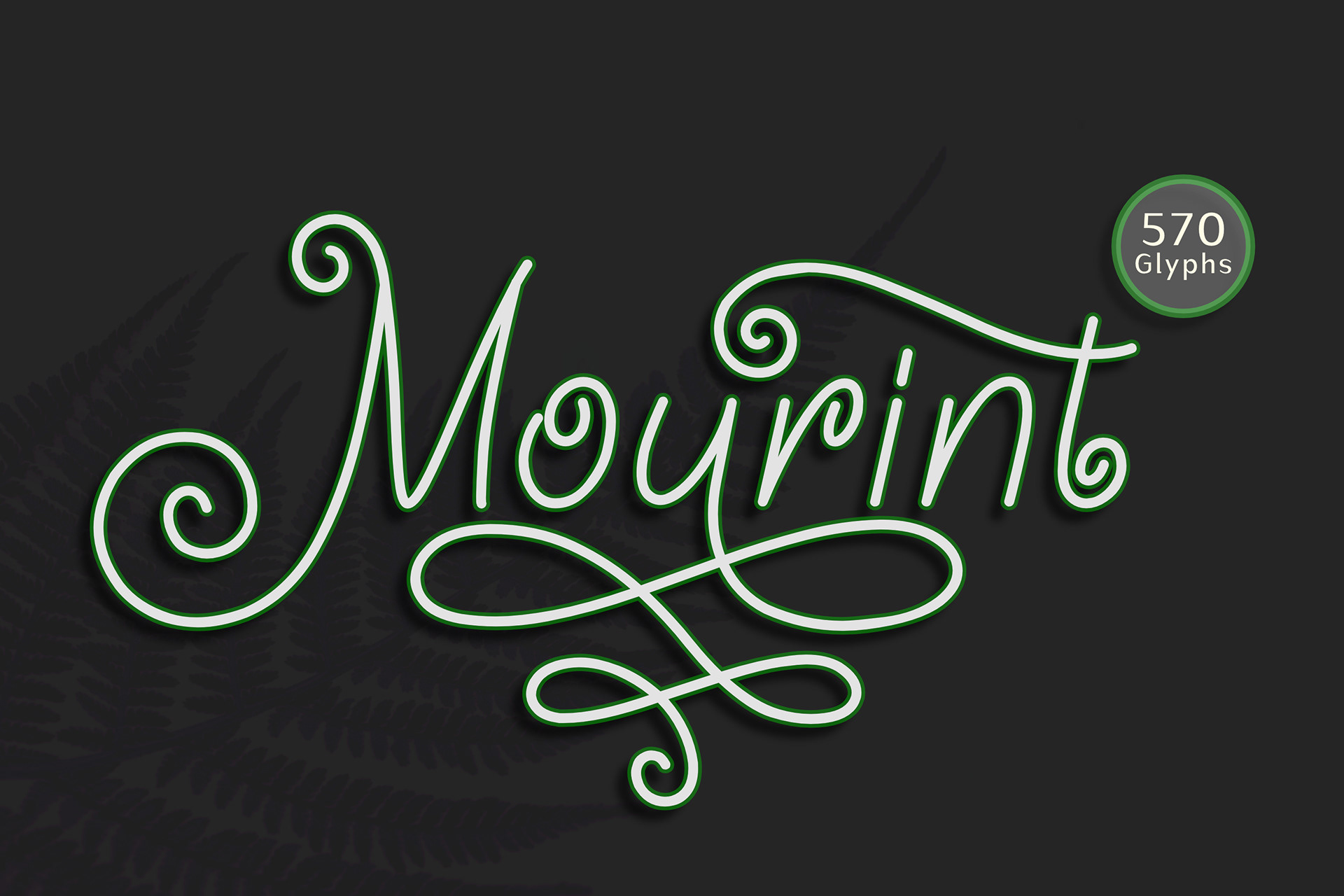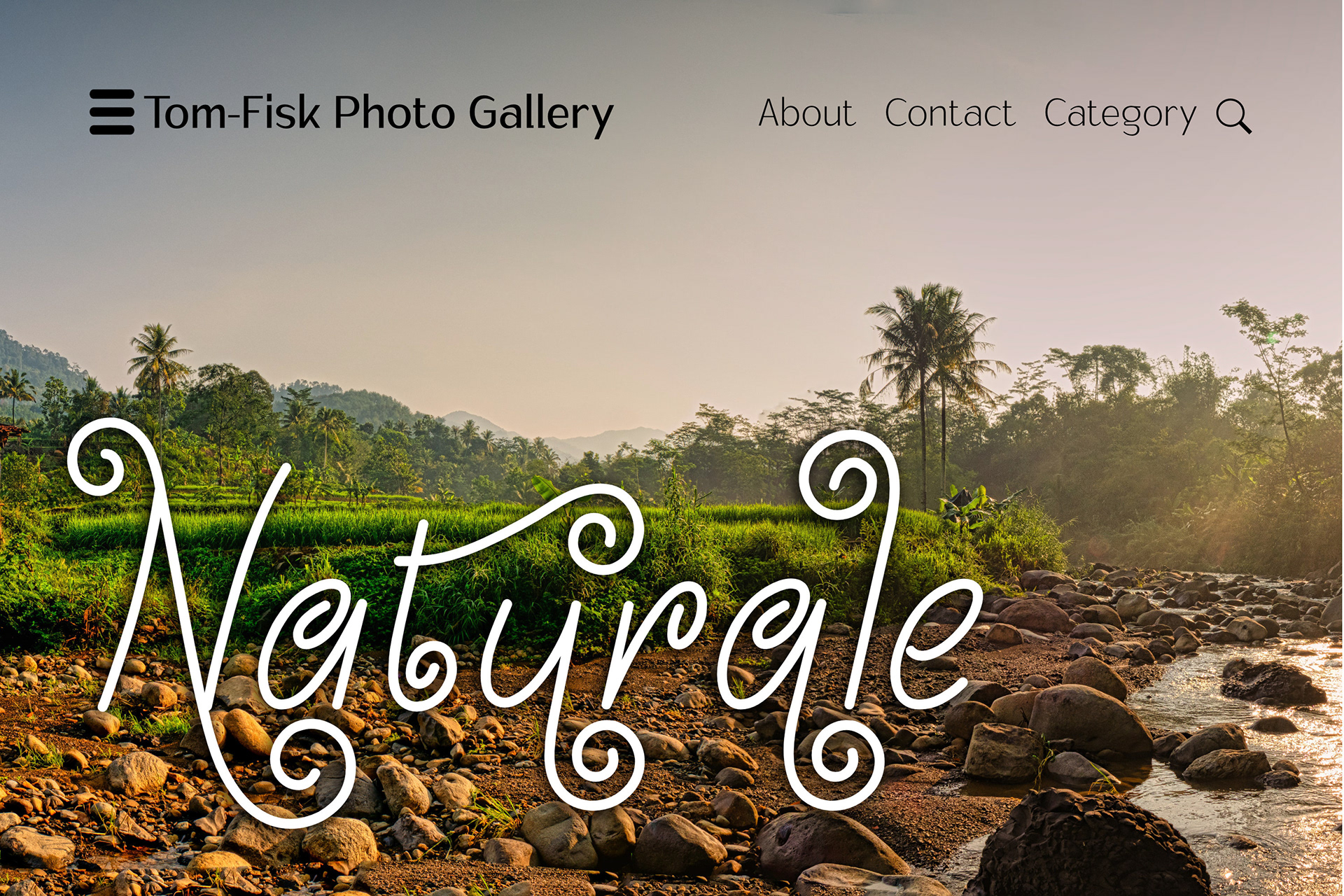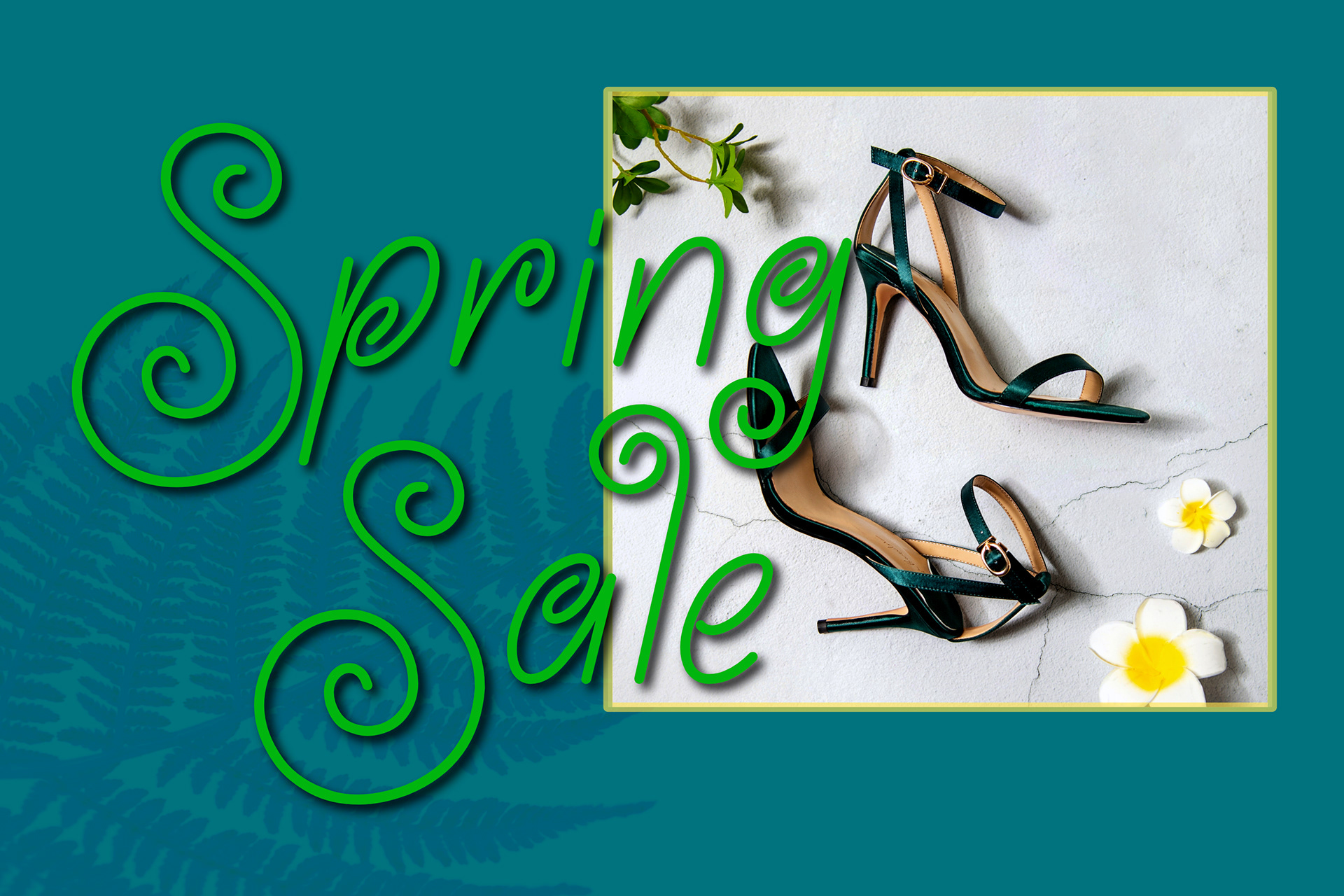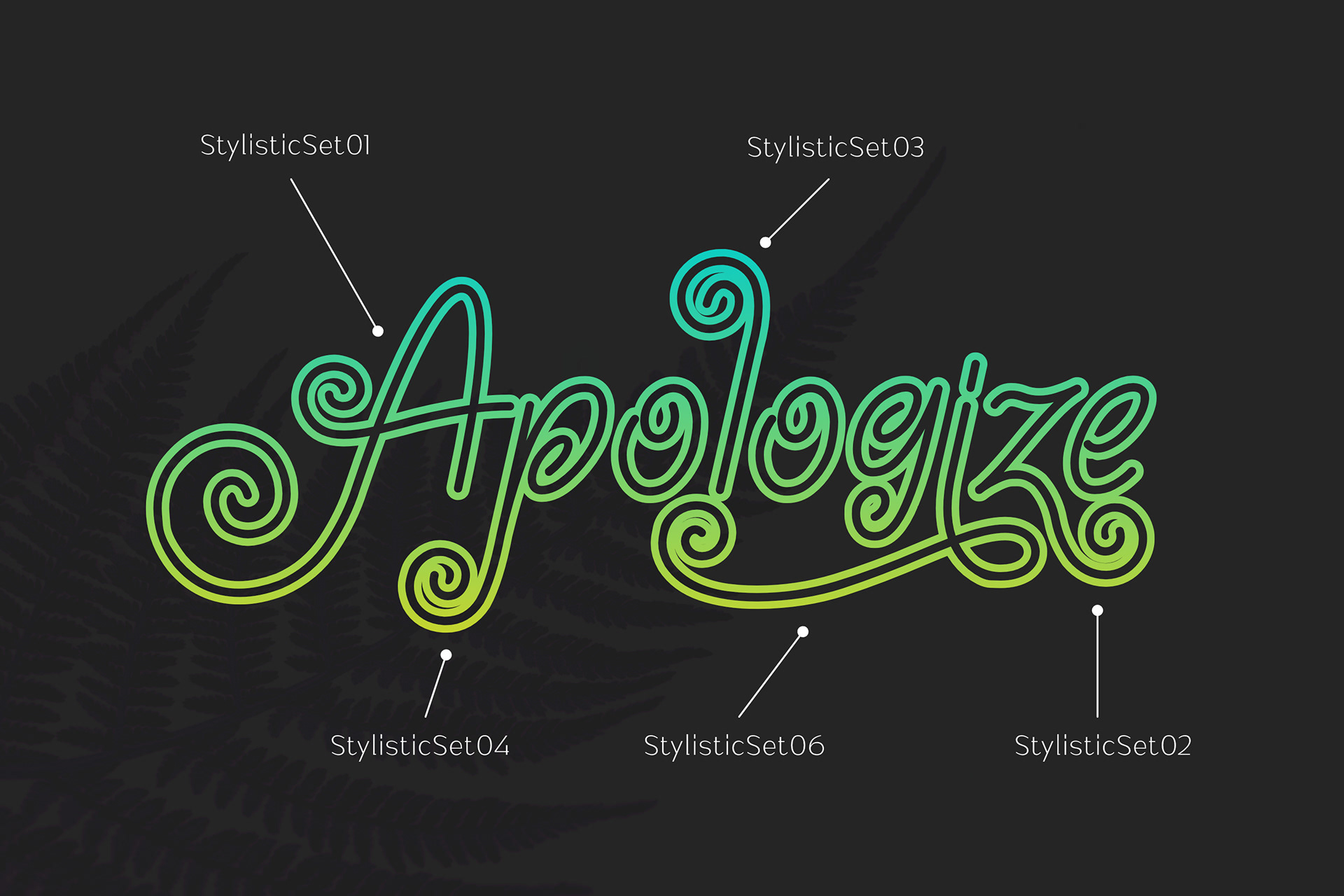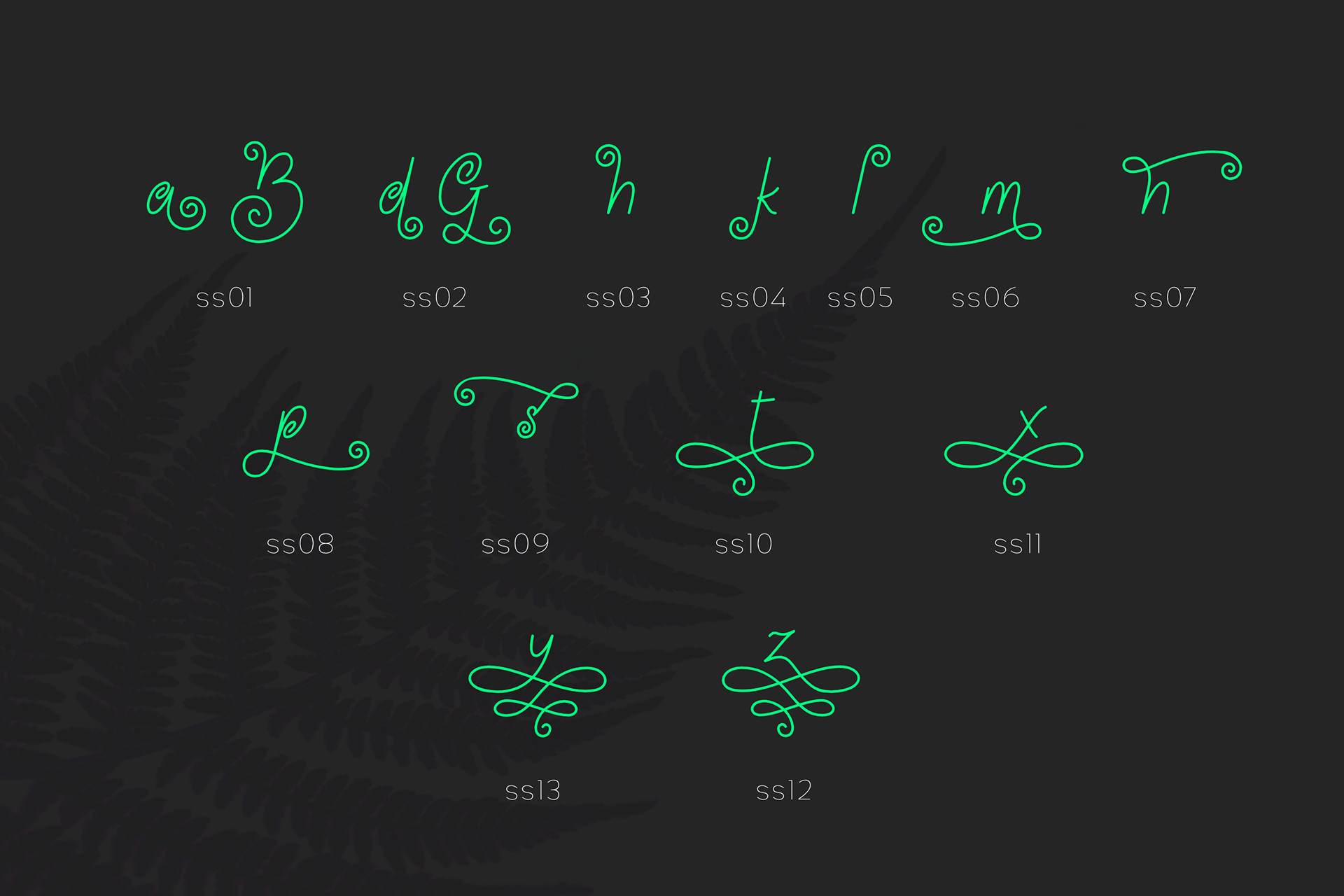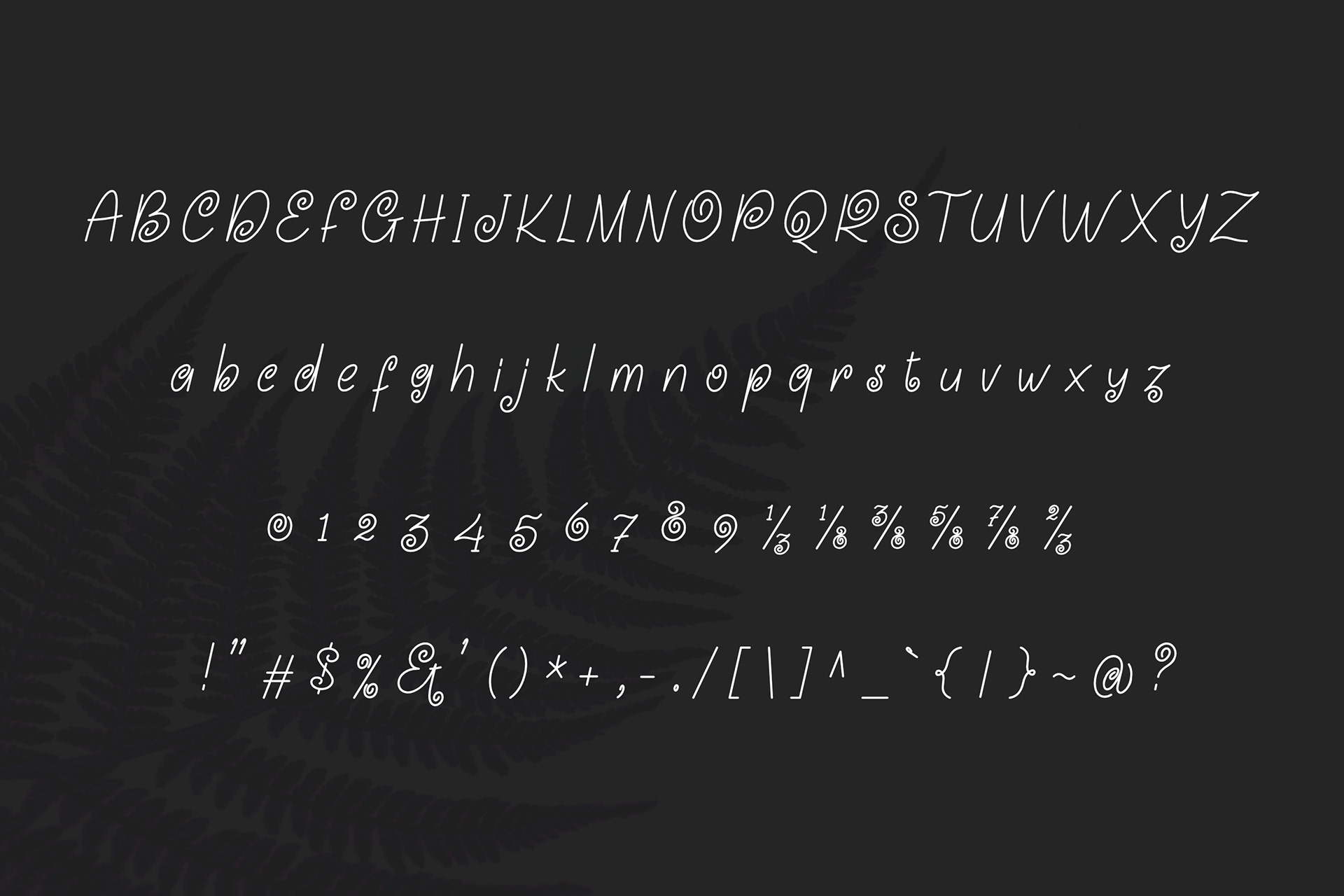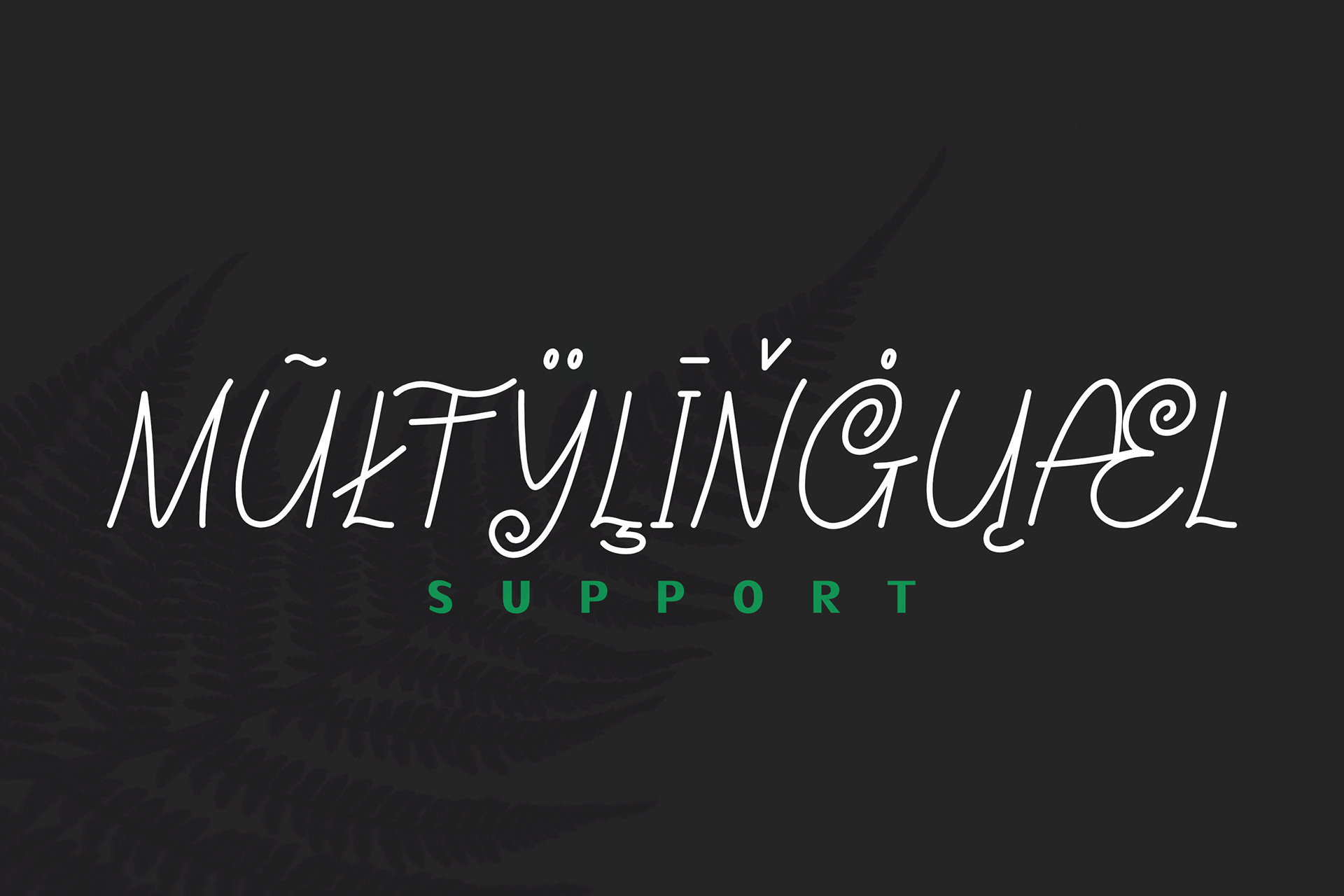
Mourint is a cute little handwritten font made with fun and creative looks in mind. Equipped with more than 150 alternative characters that you can apply according to your needs. This typeface will create a beautiful and fun impression on any of your craft and business ideas!